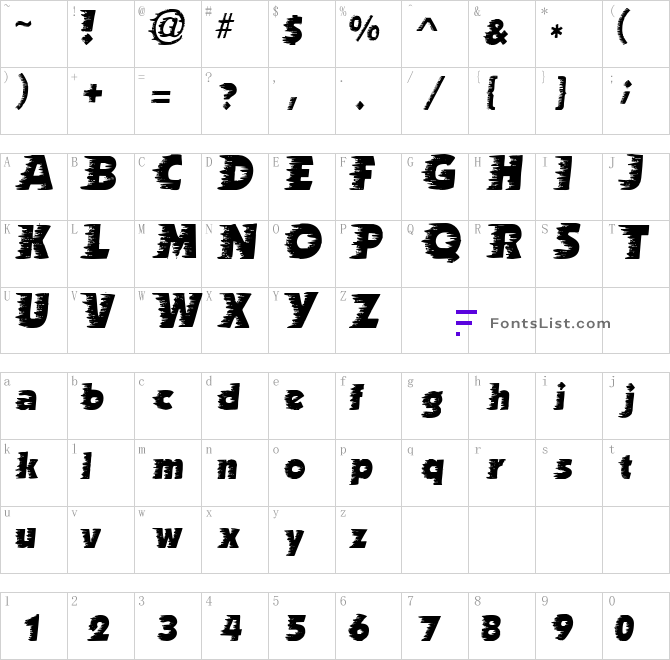
- Font Name:AnniesWindy
- Subfamily:Semi-expanded
- Subfamily:AnnieLang/AnnieThingsPossible: Annie's Windy: 2003
- Full Name:AnniesWindy Semi-expanded
AnniesWindy-Semi-expanded.ttf is a very beautiful artistic font, AnniesWindy-Semi-expanded.ttf is widely used in the design and printing of various books and pictures,AnniesWindy-Semi-expanded.ttf has a strong visual impact,AnniesWindy-Semi-expanded.ttf is a commonly used font in newspapers, magazines and books, and is used in posters, e-commerce Poster design, store design, logo design, font design and other fields.AnniesWindy-Semi-expanded.